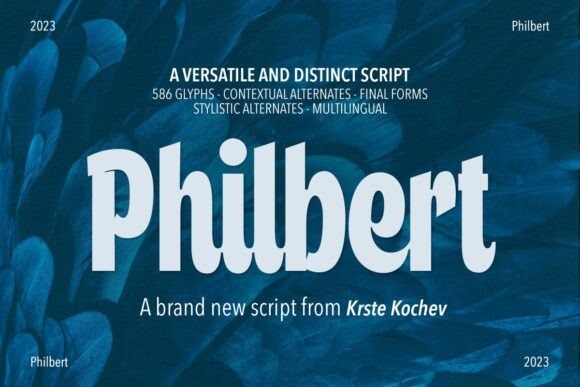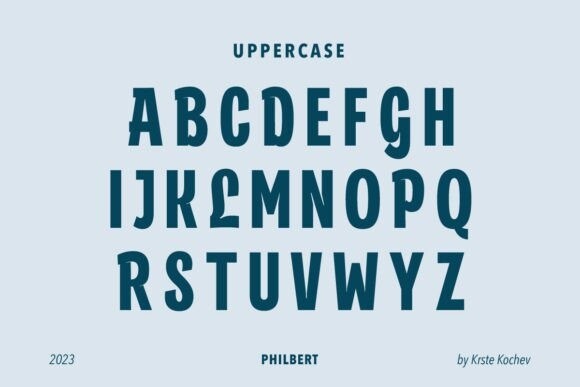
Philbert Font
Philbert Font is a modern script font with lots of features and open-type capabilities. Each character has a sans serif alternative which makes it super versatile and adaptable.